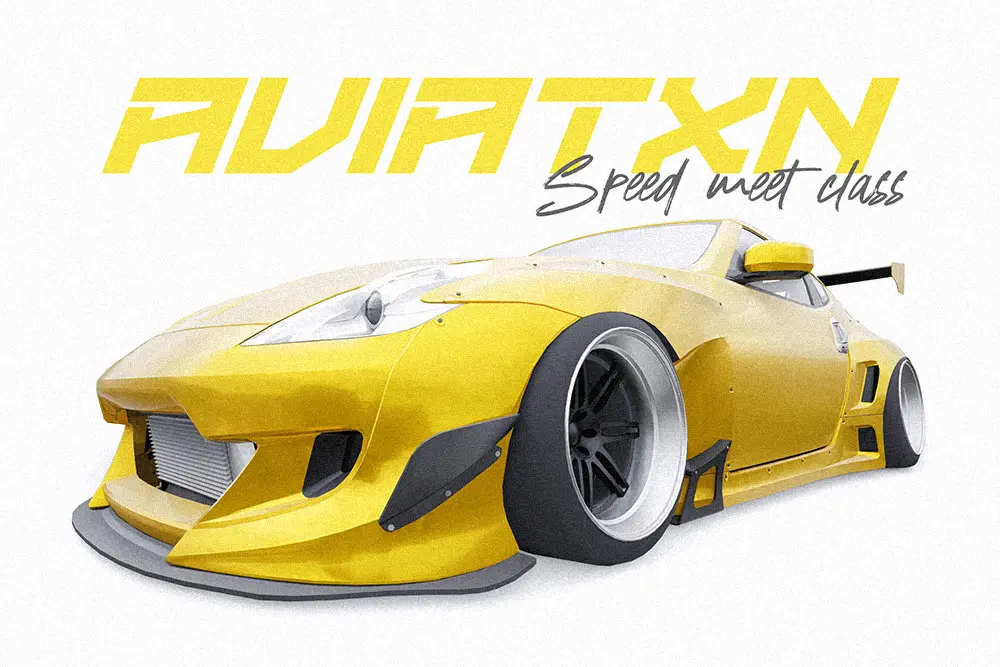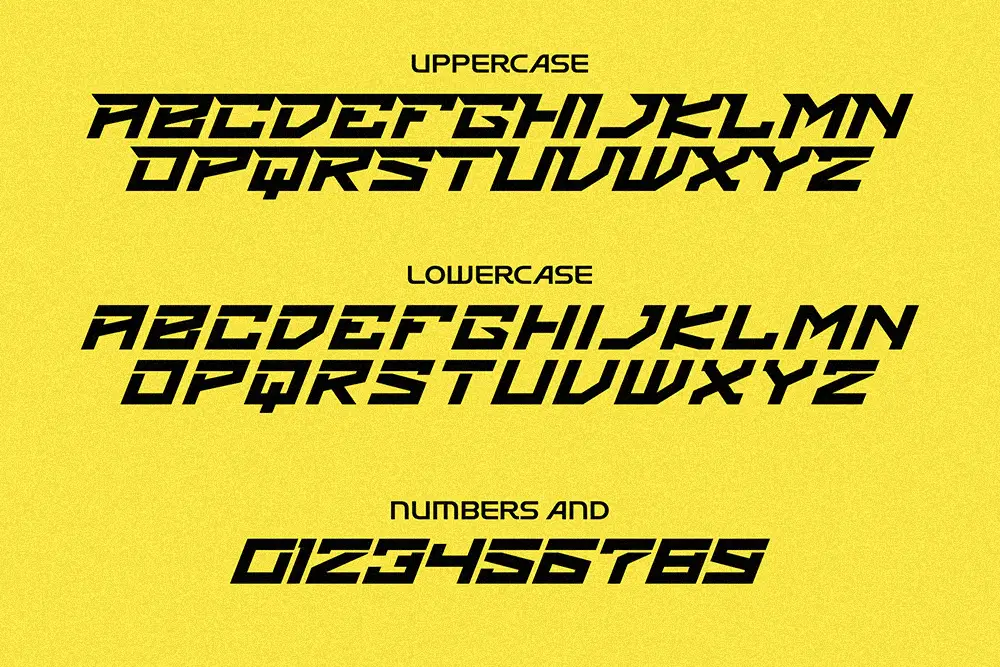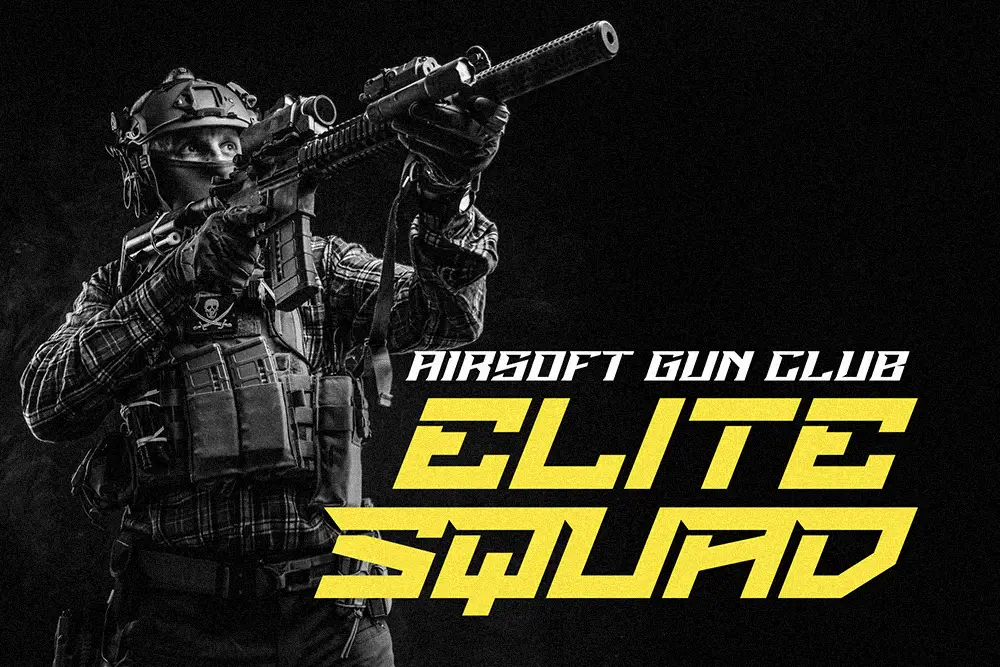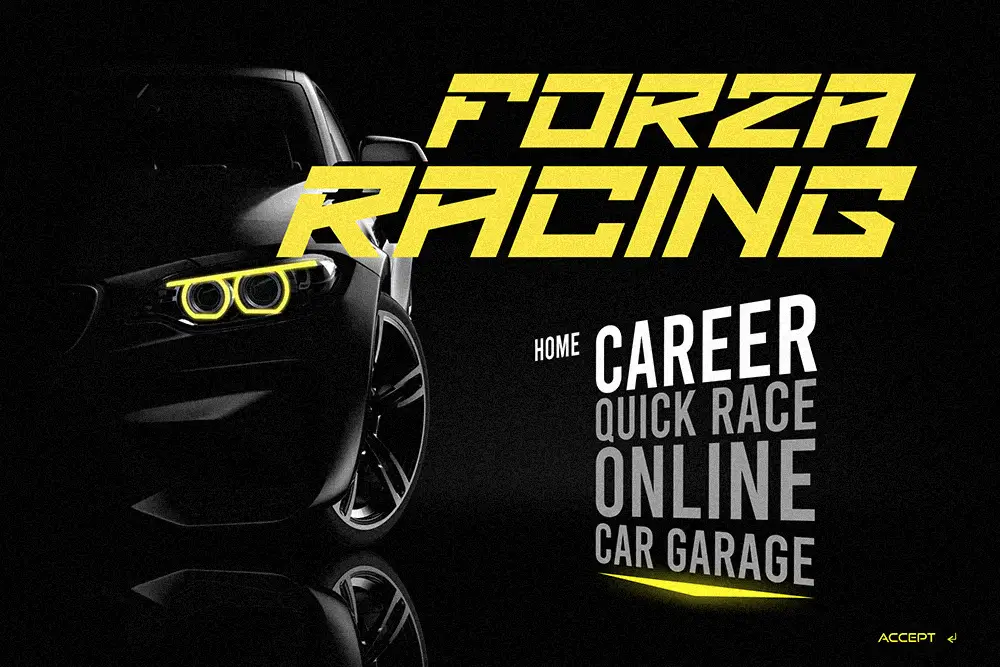
The Bold Racing Display Font Engineered for Speed and Digital Impact
When your design needs to feel fast, aggressive, and cutting-edge, Brakshoo steps in. This ultimate racing display font is engineered with kinetic energy and precision. Featuring dynamic uppercase, lowercase, and numeric characters, Brakshoo delivers unparalleled versatility for any high-impact layout. Whether you’re building automotive branding, game titles, event banners, or sports graphics, this racing font adds velocity, drama, and high-style punch.
Built with sleek modern forms, Brakshoo channels the excitement of rubber burning and engines revving. Designed for maximum title readability at large scale, yet elegant in its lowercase forms, this is a racing display font that can lead both headline and subtext.
- Uppercase & Lowercase alphabet for flexible typographic control
- Numbers and punctuation included for full coverage
- Bold angular forms inspired by racing decals and speed lines
- Clean, kerning-optimized spacing for high visibility
- Designed for poster printing, display banners, and vehicle graphics
- High contrast strokes for digital clarity and print legibility
Designers choose Brakshoo because it delivers instant personality and visual velocity. Its bold racing aesthetic communicates strength and urgency — ideal for industries like motorsport, gaming, sports, and tech. The balance between uppercase solidity and lowercase nuance allows flexible use in both titles and body text or captions.
Moreover, Brakshoo’s consistent stroke weight and sharp angles make it easy to pair with softer fonts, unlike overly stylized display fonts. The blend of grit and polish appeals to creatives designing digital thumbnails, daring posters, or edgy branding materials.
If you’re searching for a modern racing display font or a high-impact title typeface, look no further than Brakshoo. This font is optimized to stand out in digital ads, banner designs, and mobile UIs. Its futuristic shapes and dynamic presence give your graphics that high-octane feel designers crave.
The all-sets support (uppercase, lowercase, numbers) means Brakshoo is also excellent for UI dashboards, scoreboard displays, or racing-themed graphics. It carries your message forward with clarity and speed.
This font covers both racing branding and digital-first design trends. It pairs exceptionally well with humanist or hand-brush fonts for contrast, giving scale and personality to your typographic system.
Brakshoo is not just a display font, it’s a visual accelerator. Infused with aerodynamic motion and razor-sharp geometry, it’s built to dominate design lanes from posters and branding to tech graphics. With uppercase, lowercase, symbols, and numbers all tuned for precision—Brakshoo takes your visual message into overdrive. Hit full throttle on your design and let your visuals race ahead of the pack with Brakshoo.